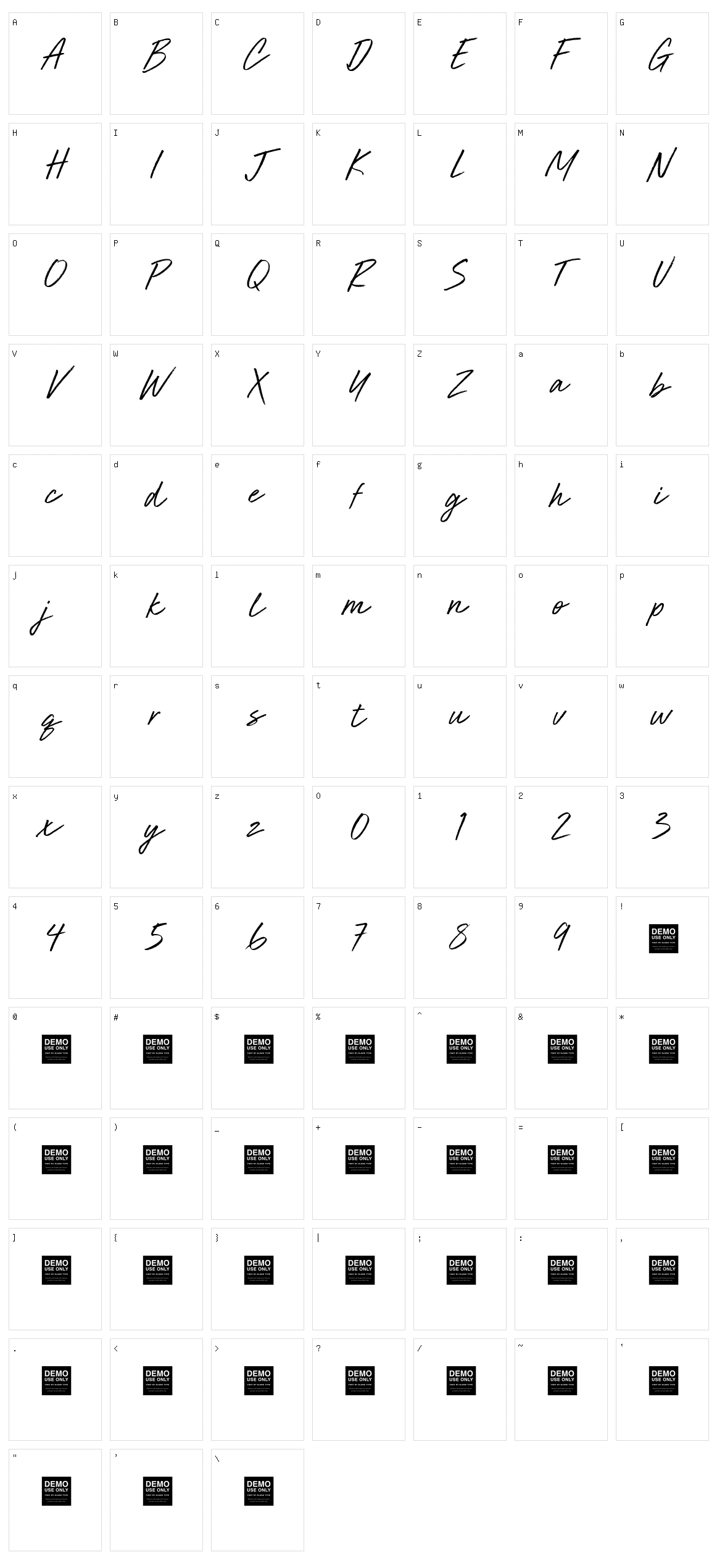
The free font Easy Listening is carefully designed by BLKBK Fonts, showcasing a thoughtful balance of creativity and usability and falls under the Script font style. When you download the ZIP file, it contains only 109.06 KB of font files, making it lightweight and quick to download. Please review the license details below to understand permitted usage and distribution rights. If license information is not available, we recommend using this font for personal projects only or contacting the author directly for commercial usage permissions.